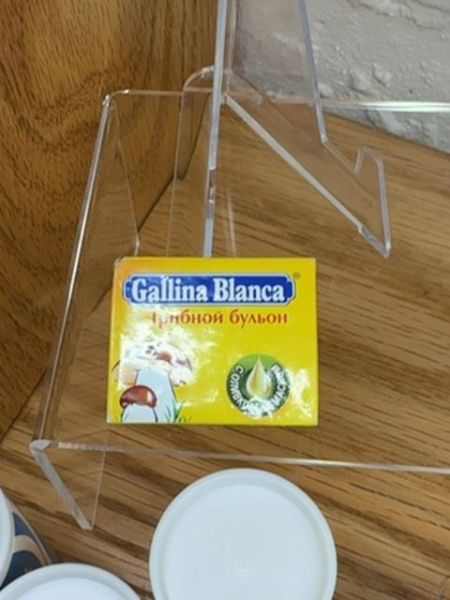
Gallina Blanca
A fish broth used for cooking to enhance flavors and add depth to dishes.
Spain
The typography of the Gallina Blanca logo uses a bold serif font, which gives it a classic and trustworthy appearance. The use of white text on a blue background helps in making the name stand out, ensuring high readability. The accompanying text in a simpler, sans-serif font complements the overall aesthetic, focusing on clarity and straightforwardness.
The packaging is a compact, square box with a bright yellow background that immediately draws attention. The branding is prominently displayed in a bold, blue and white rectangular banner at the top, and there are images of garlic and seafood elements that hint at the product's flavor profile.
- Gallina Blanca is a well-known brand in the seasoning and soup market.
- The brand offers a variety of broths and flavorings.
- It is popular in many European and international cuisines.